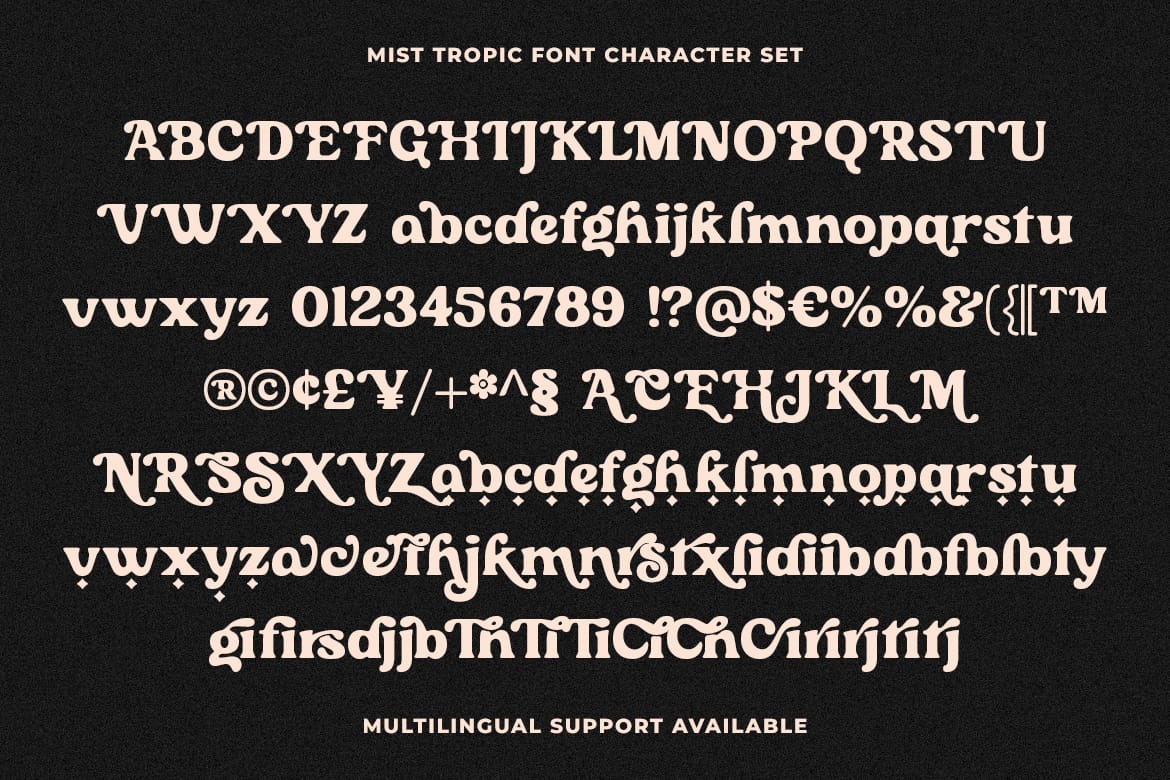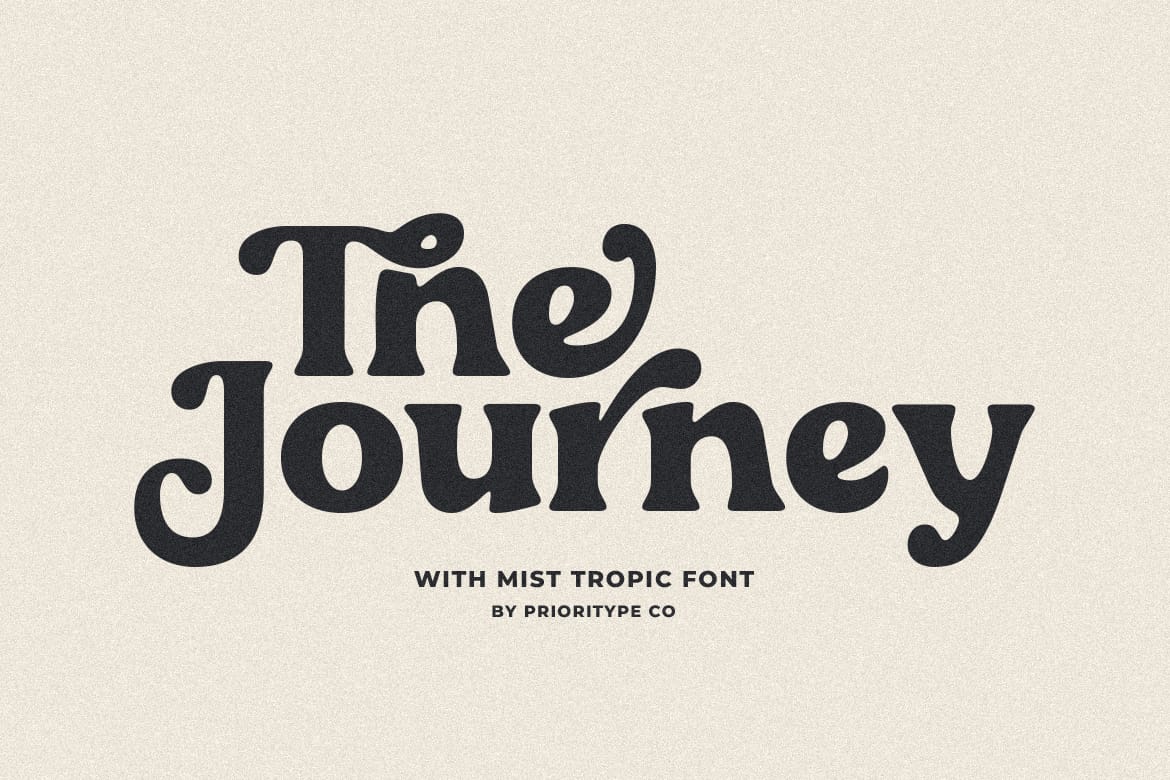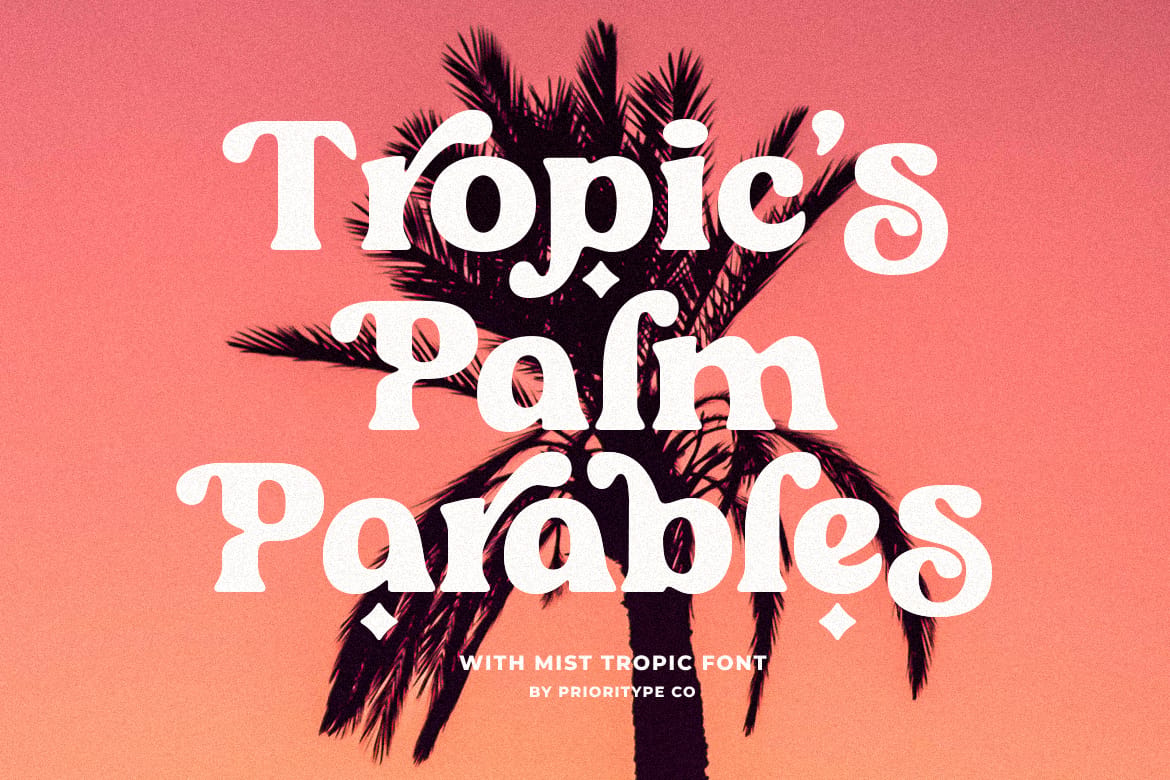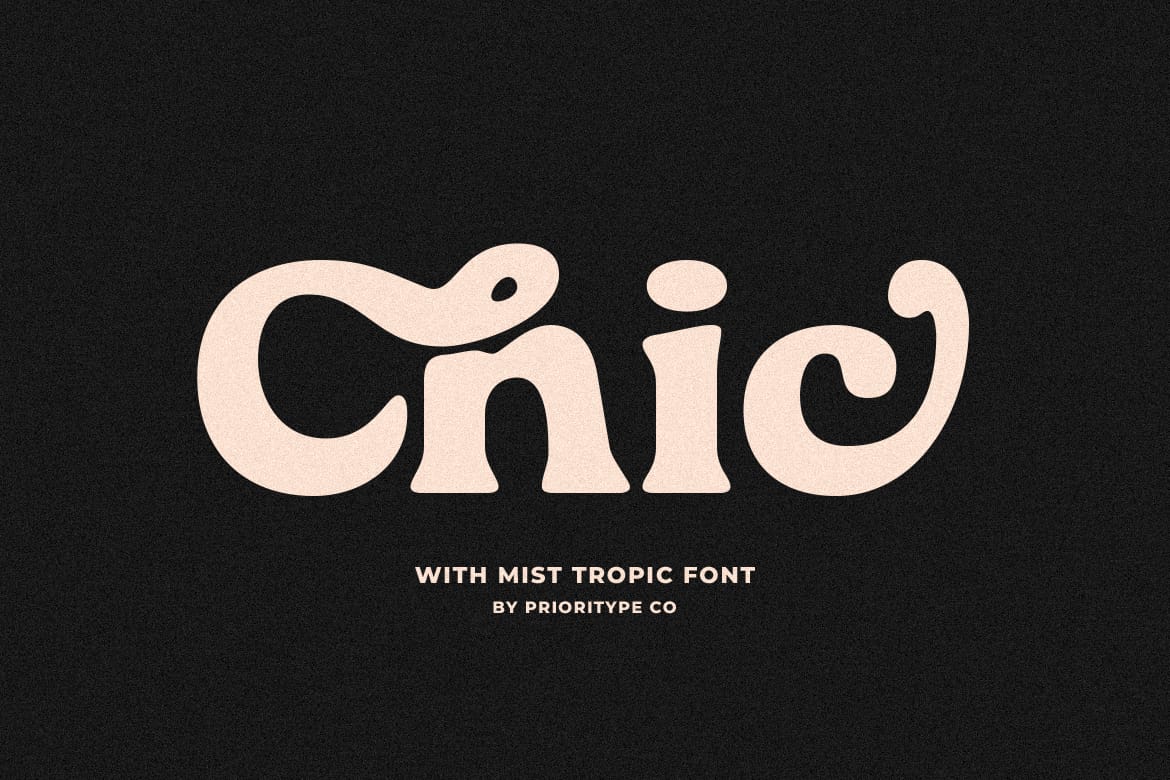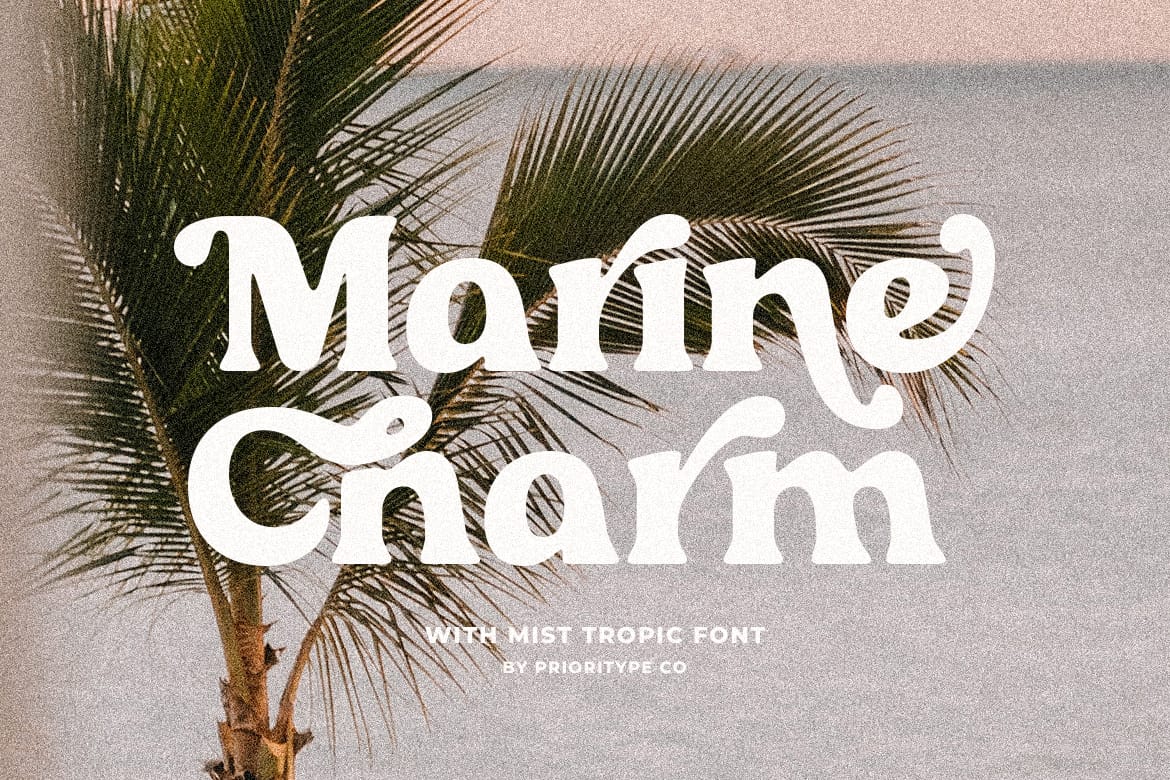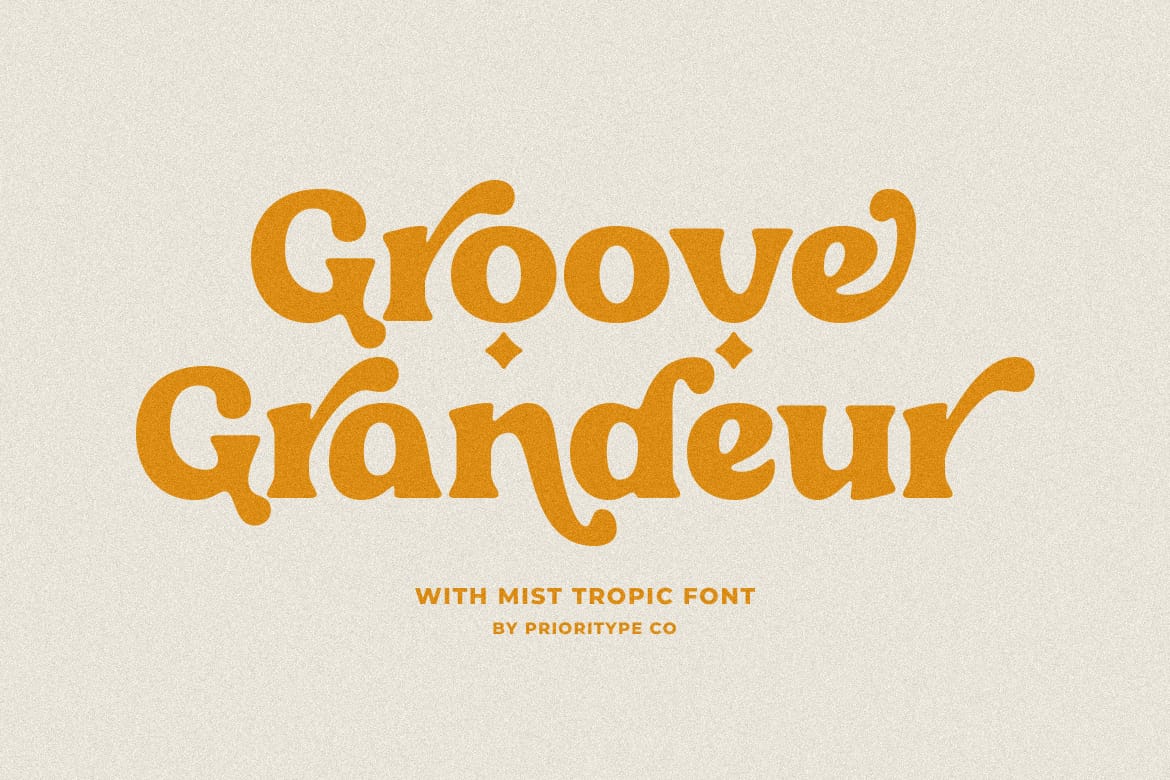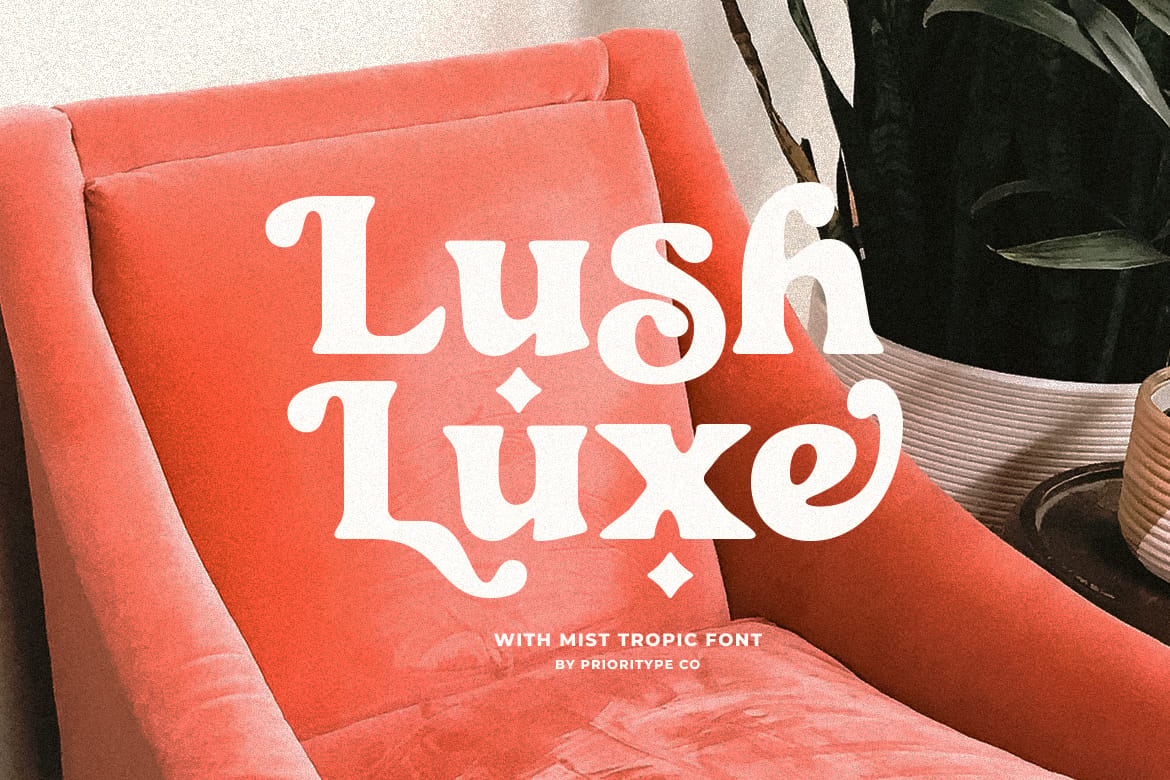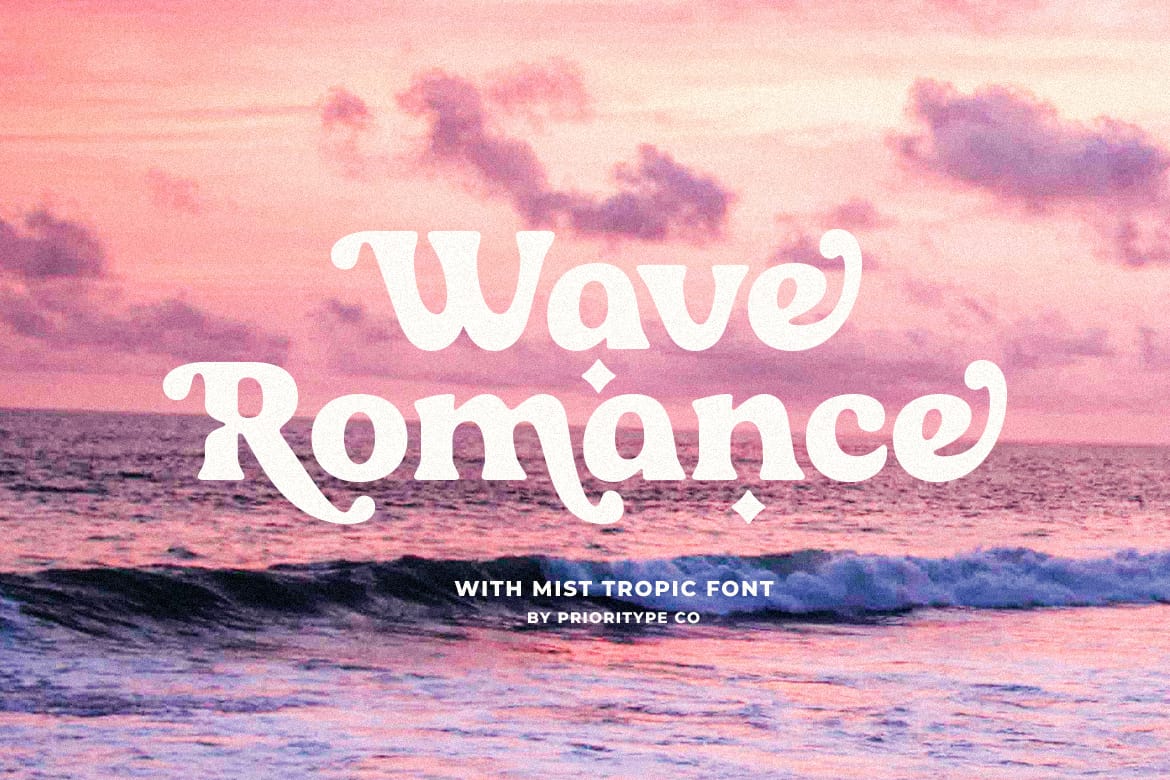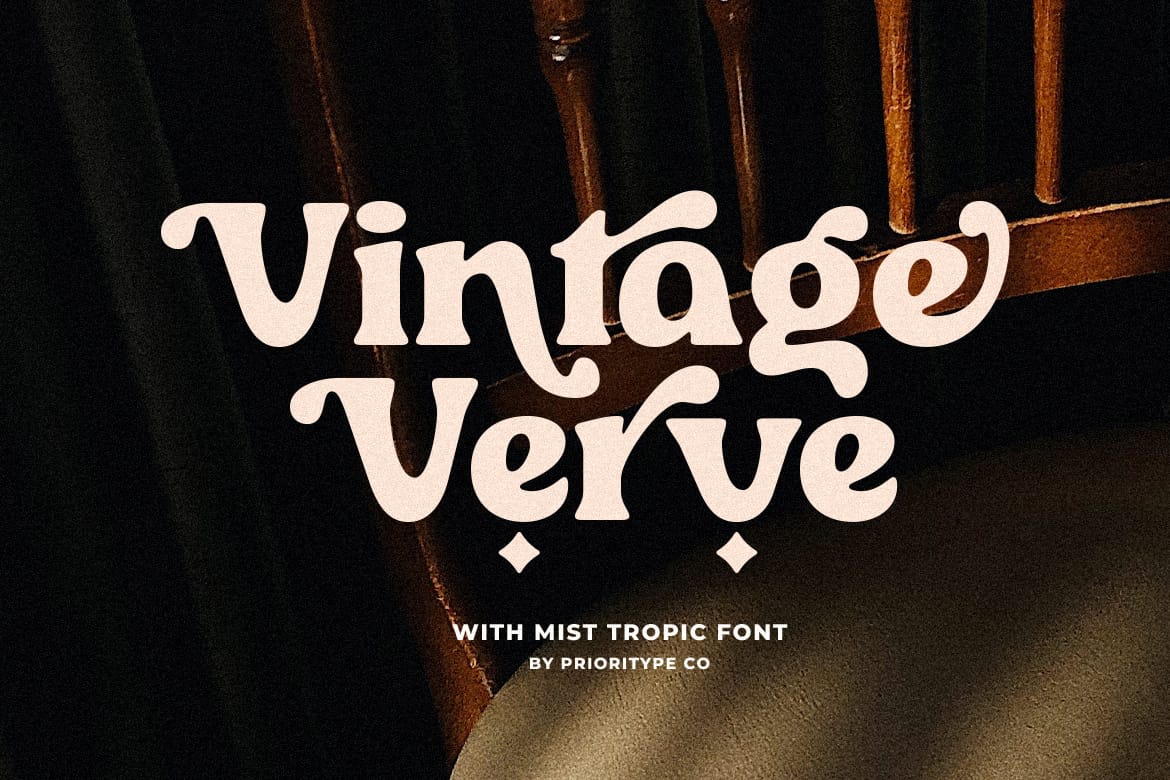
Mist Tropic - Tropic Serif Font
"Mist Tropic" blends groovy retro vibes with tropical coolness. This serif font elevates branding, logos, and merchandise with a timeless, vintage charm. Dive in, and let "Mist Tropic" transform your designs.
Features: Uppercase, Lowercase, Numeral, Punctuation, Multilingual, Alternates & Ligatures.
- Groovy retro tropical serif font
- Alternates and ligatures included
- Timeless vintage charm for branding